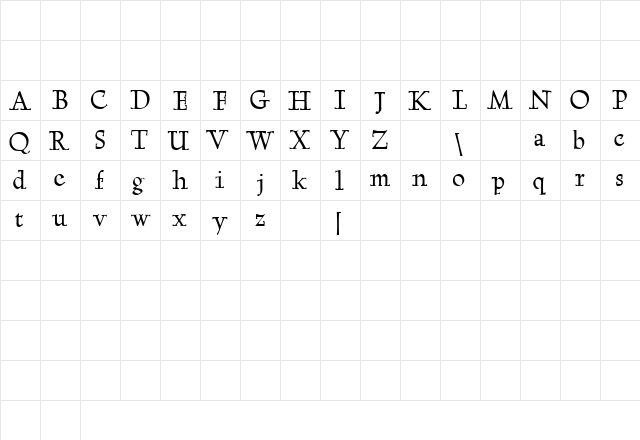
Megaserif One Demo Regular
Design Context for Megaserif One Demo Typeface
Megaserif One Demo brings classic typographic sensibility to the table — its serifs and measured letterforms reflect centuries of print heritage.
Pro Tip: Set Megaserif One Demo with slightly loose tracking in headlines to let each letterform's detail read clearly at display sizes.